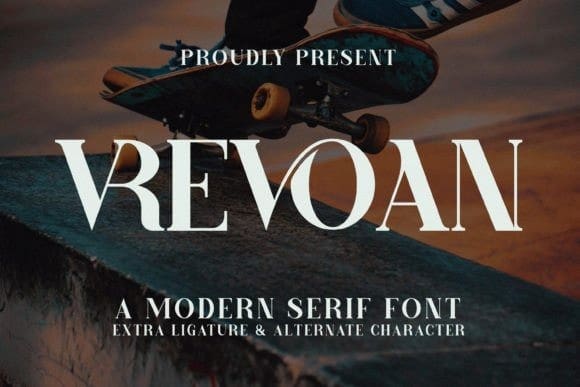
Vrevoan Font
Vrevoan Font is a stylish serif typeface exuding sophistication and charm. Its refined letterforms and subtle details capture attention, making it perfect for editorial design, branding, and luxury packaging. With a timeless elegance and versatile presence, Measseon elevates any project with its distinctively classy aesthetic.